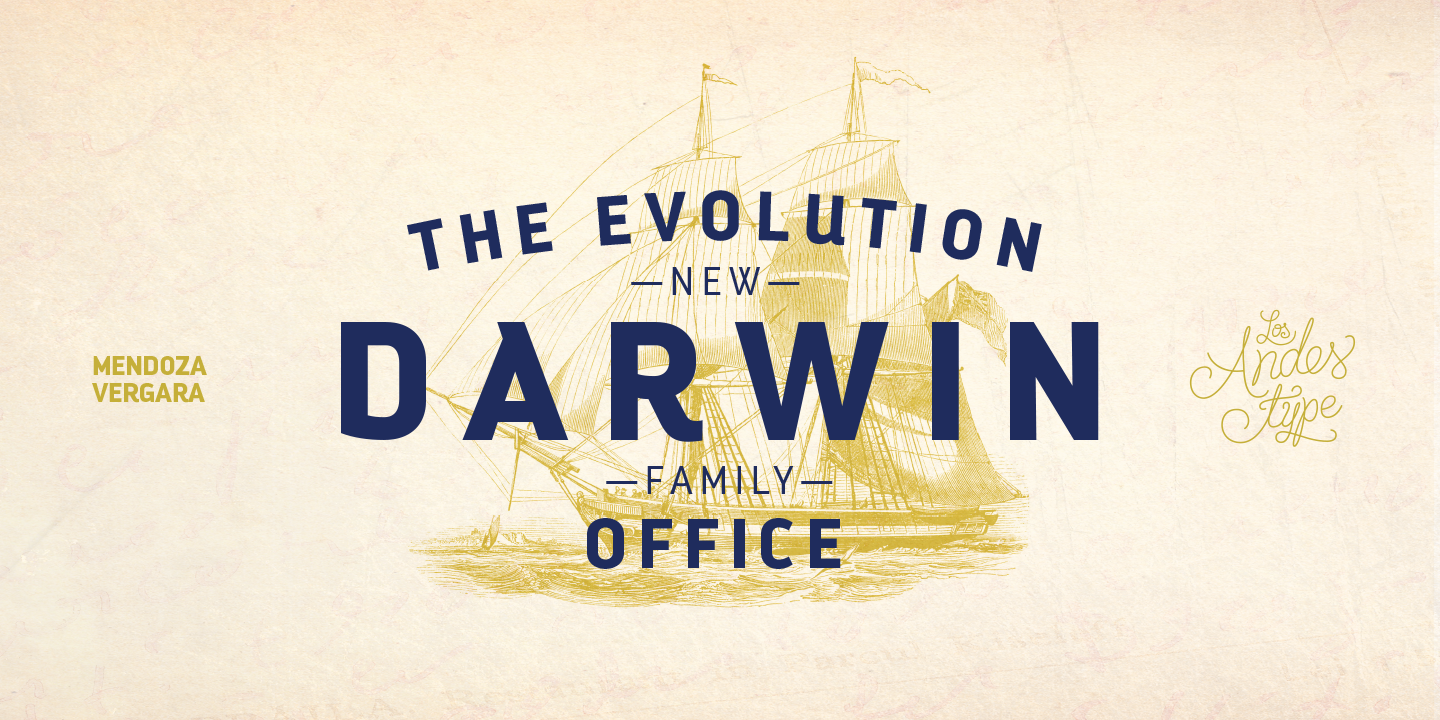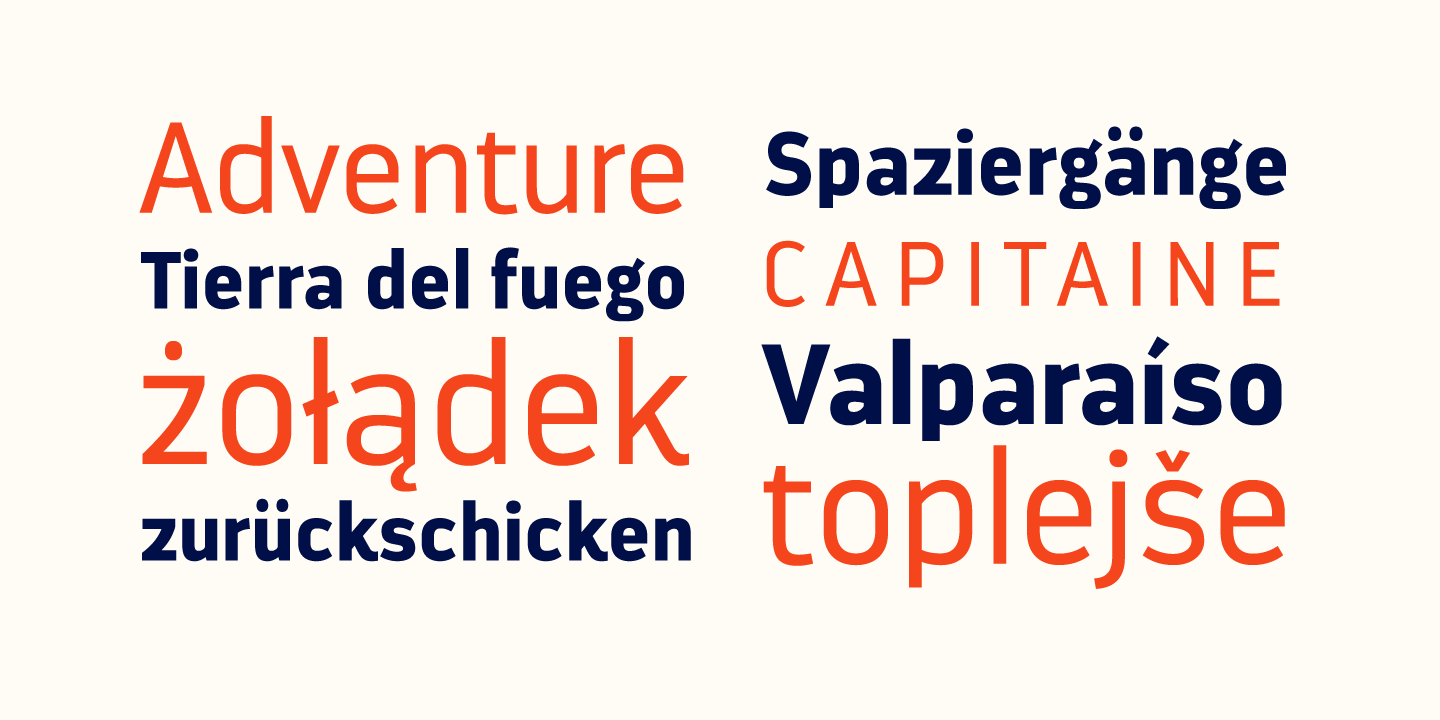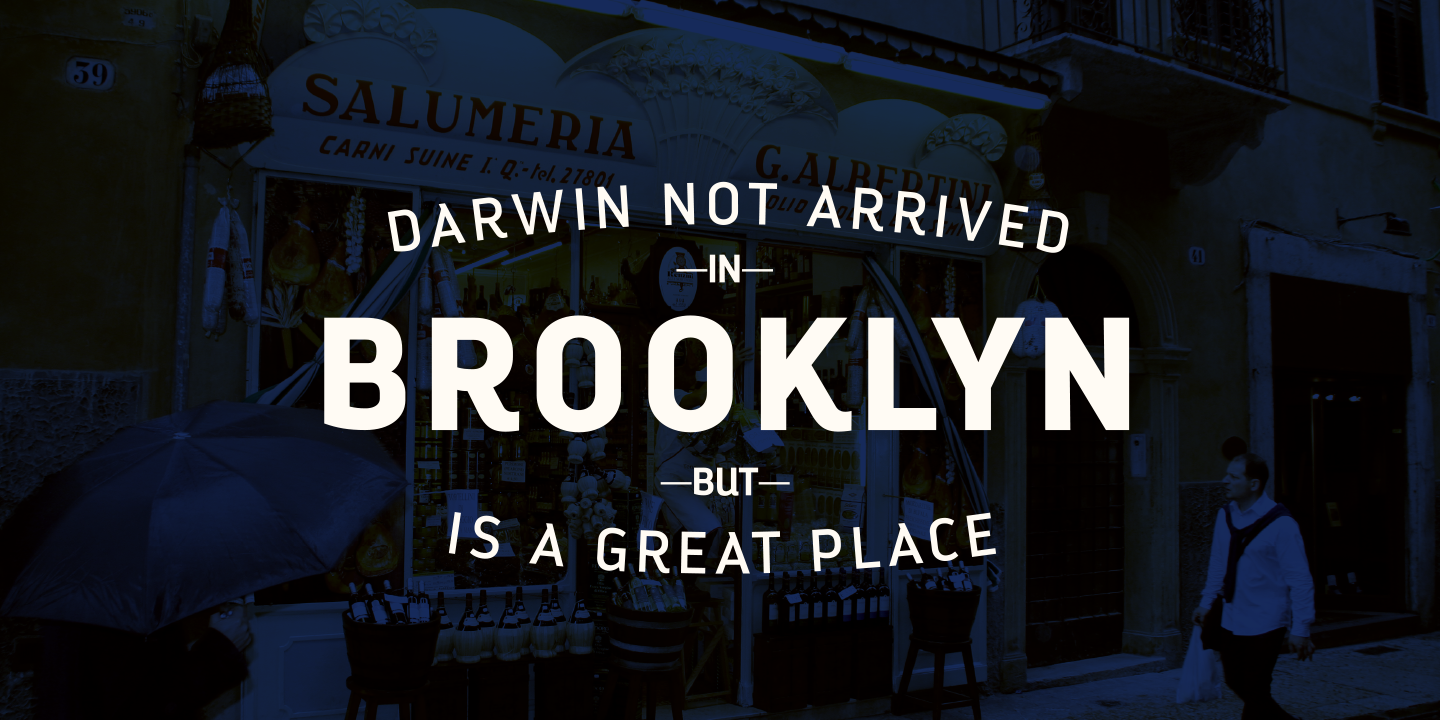
We have adapted the version of our Darwin font for use in Microsoft Office. It only has 8 variants: regular, italic, bold and bold italic and 4 Alts. Font weights have been named in a way that can be clearly shown up in the font list in Office programs for the sake of a good hierarchy (the bold variant is quite bold and does not look the same as the original font).